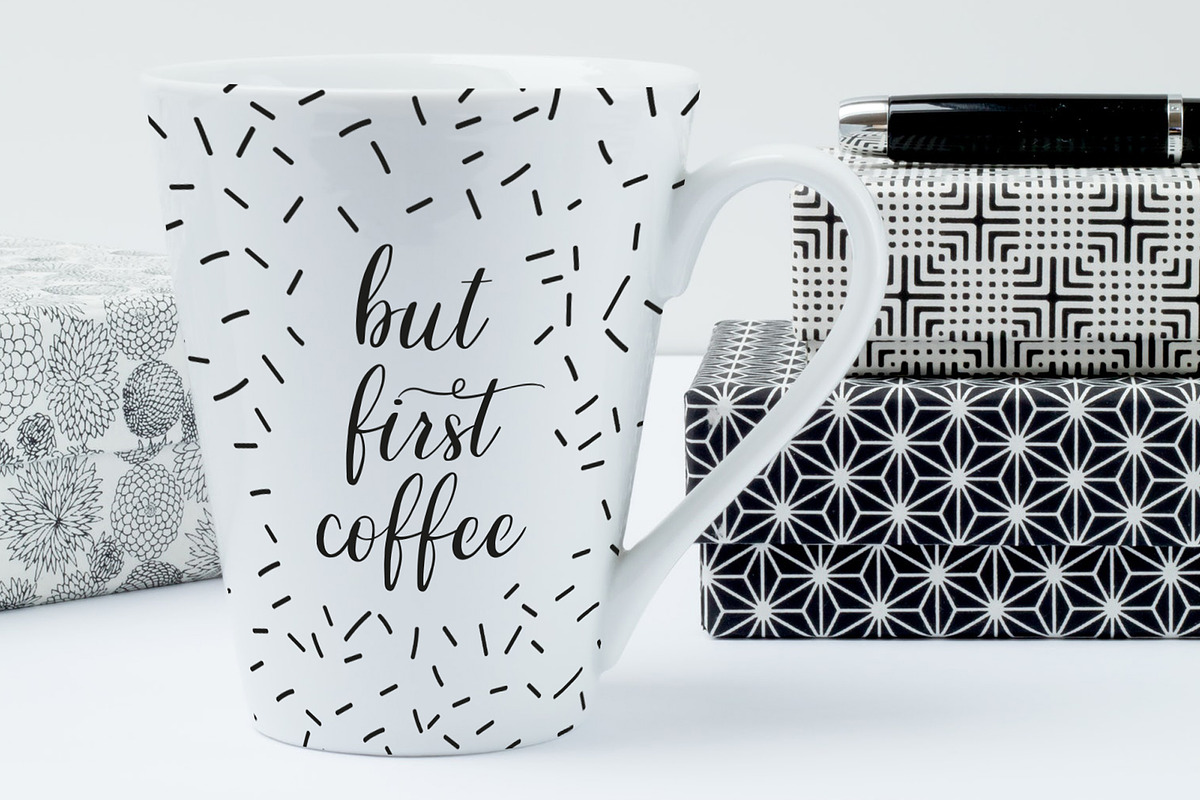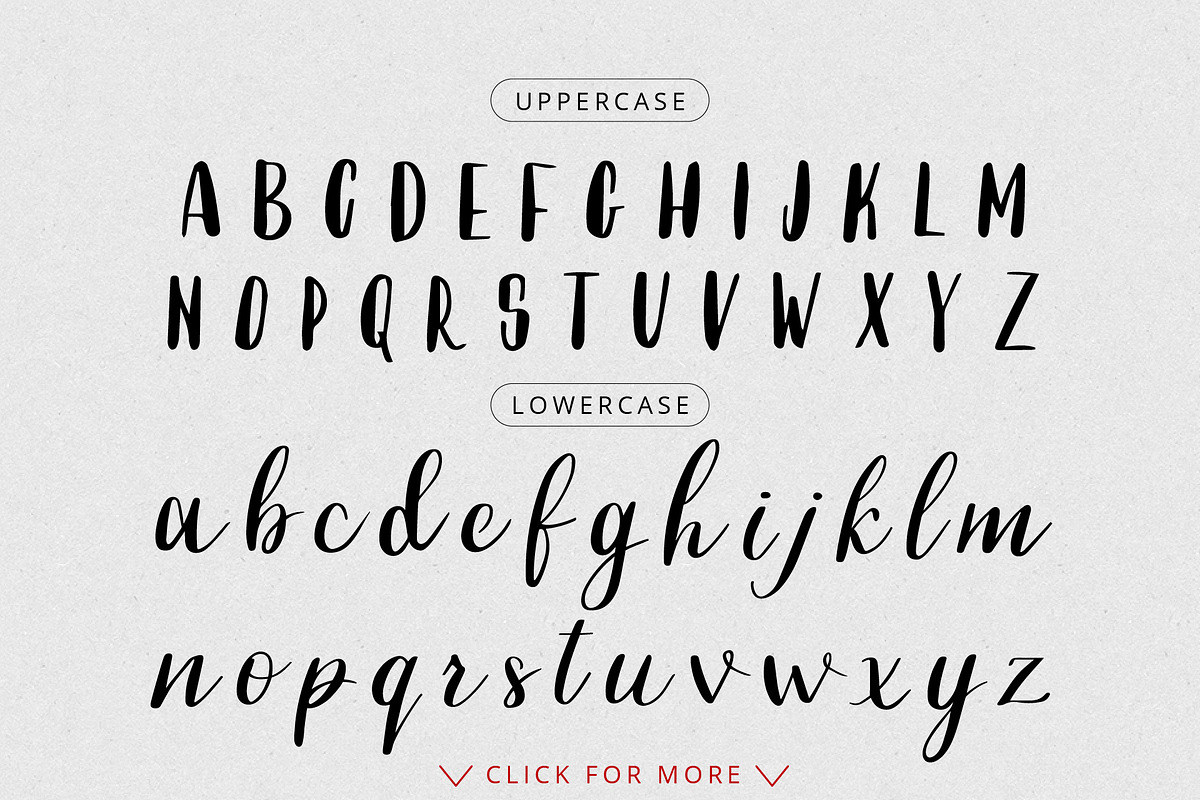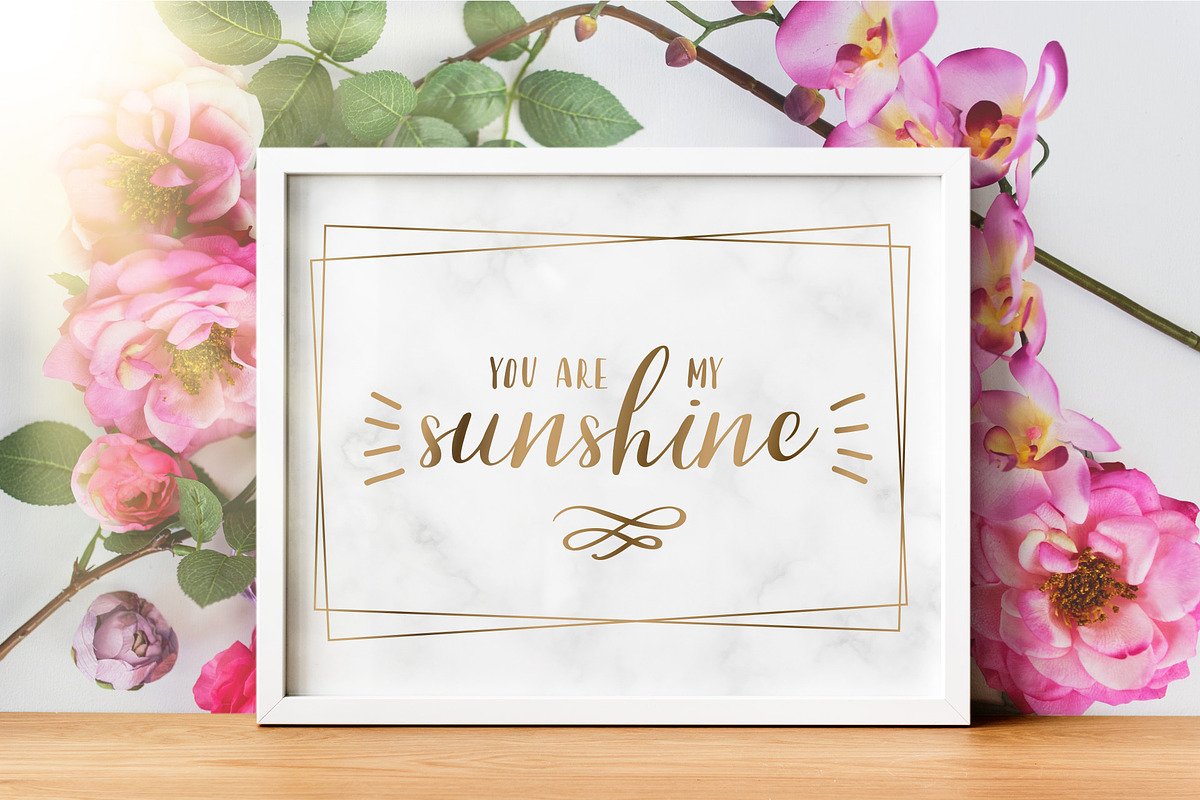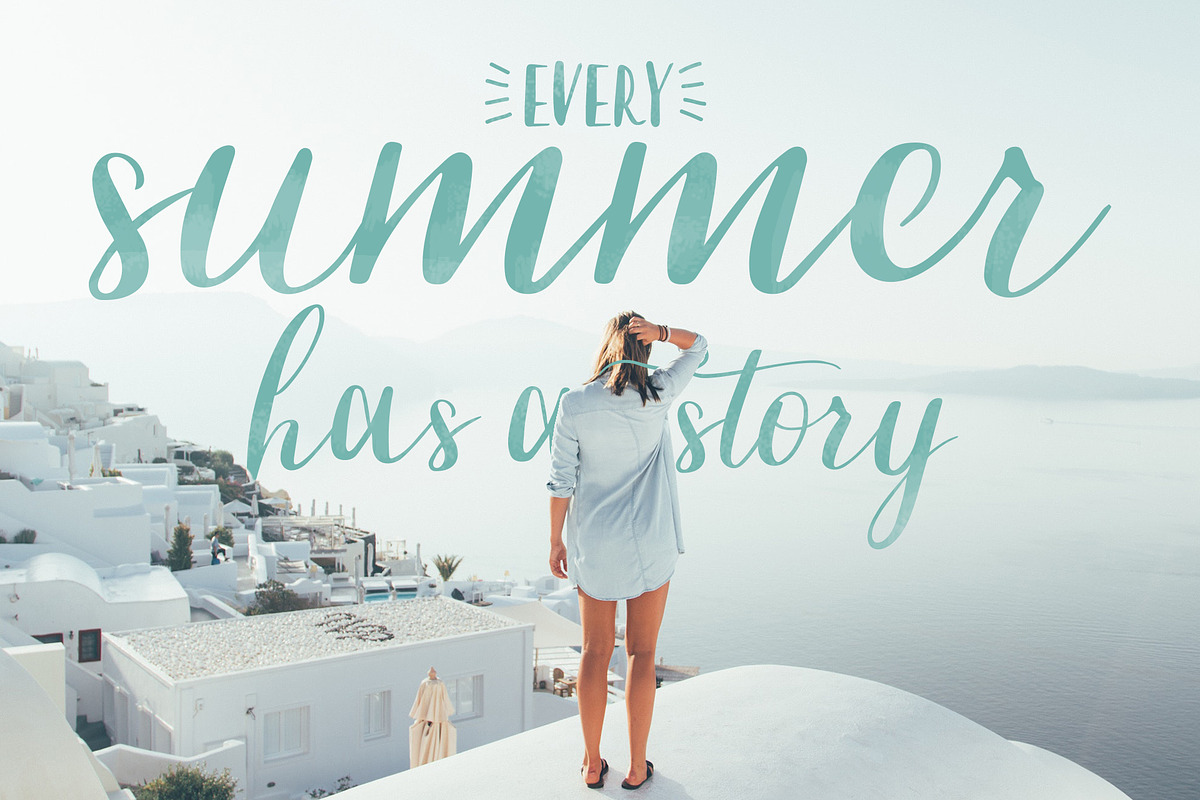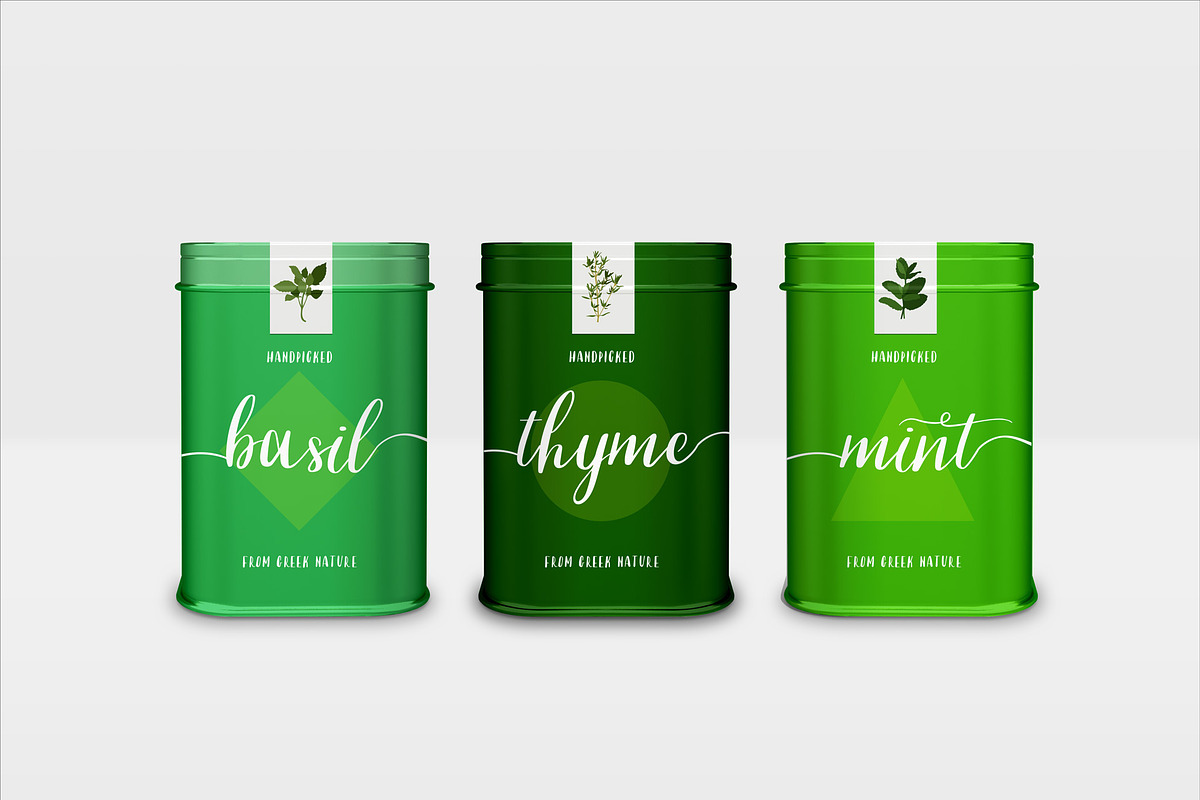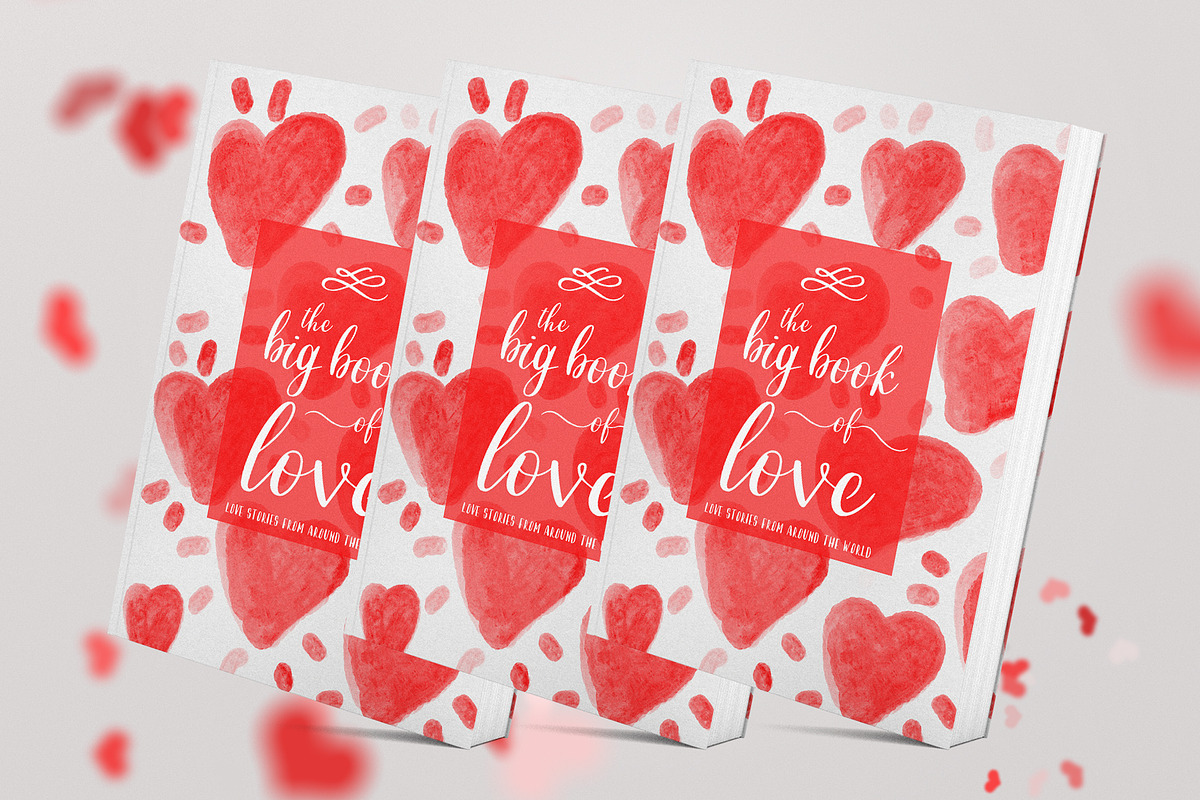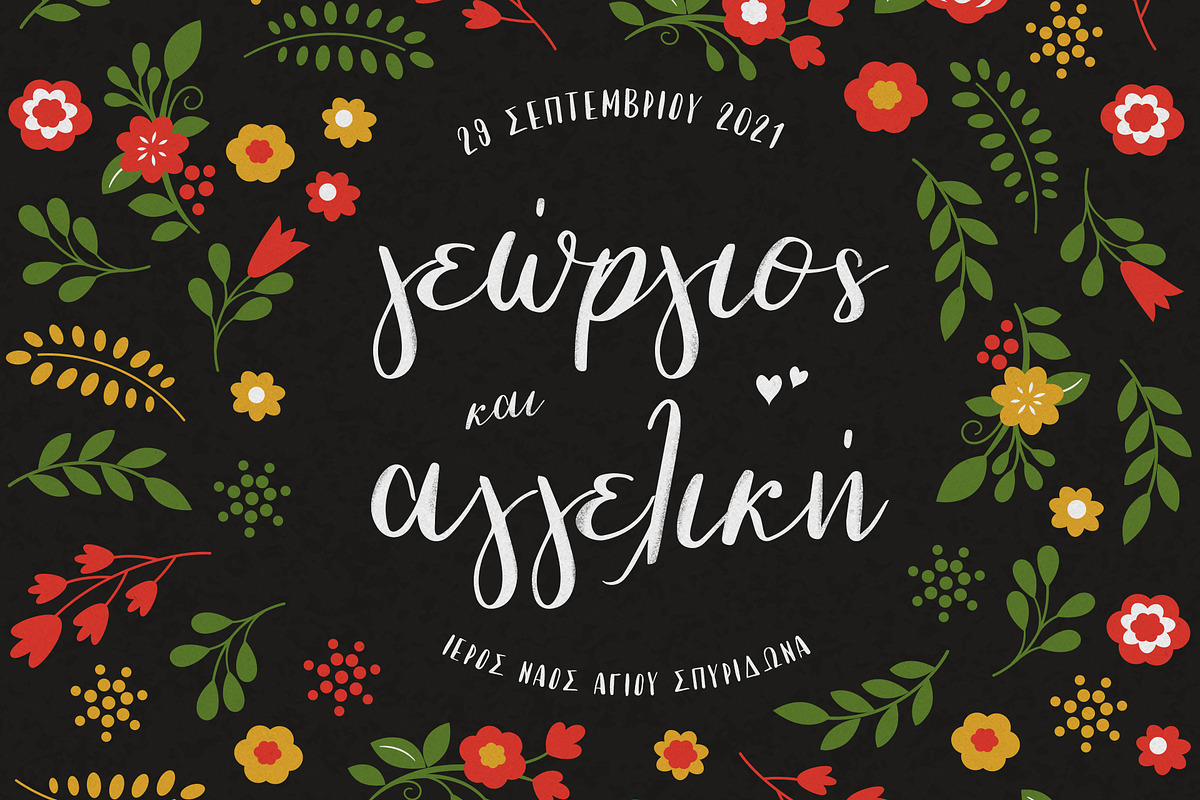
Coolscript font
Introducing Coolscript, a hand-scripted modern calligraphy font, designed for creating great typographic designs, including product designs, wedding invitations, posters, book covers, social media campaigns and many more.
Extra swashes in font form are Included in the pack to add originality to your designs. Stylistic alternates and ligatures are also available. The uppercase letters can be used as a title font with perfect fit with lowercase letters.
Supports international languages.
- Greek alphabet is fully included in the pack.
- Stylistic alternates and ligatures are also available.
- The uppercase letters can be used as a title font with perfect fit with lowercase letters.
Why Coolscript font is worth a look
Coolscript font by George Bourle fits naturally into Branding, posters, packaging, typography.